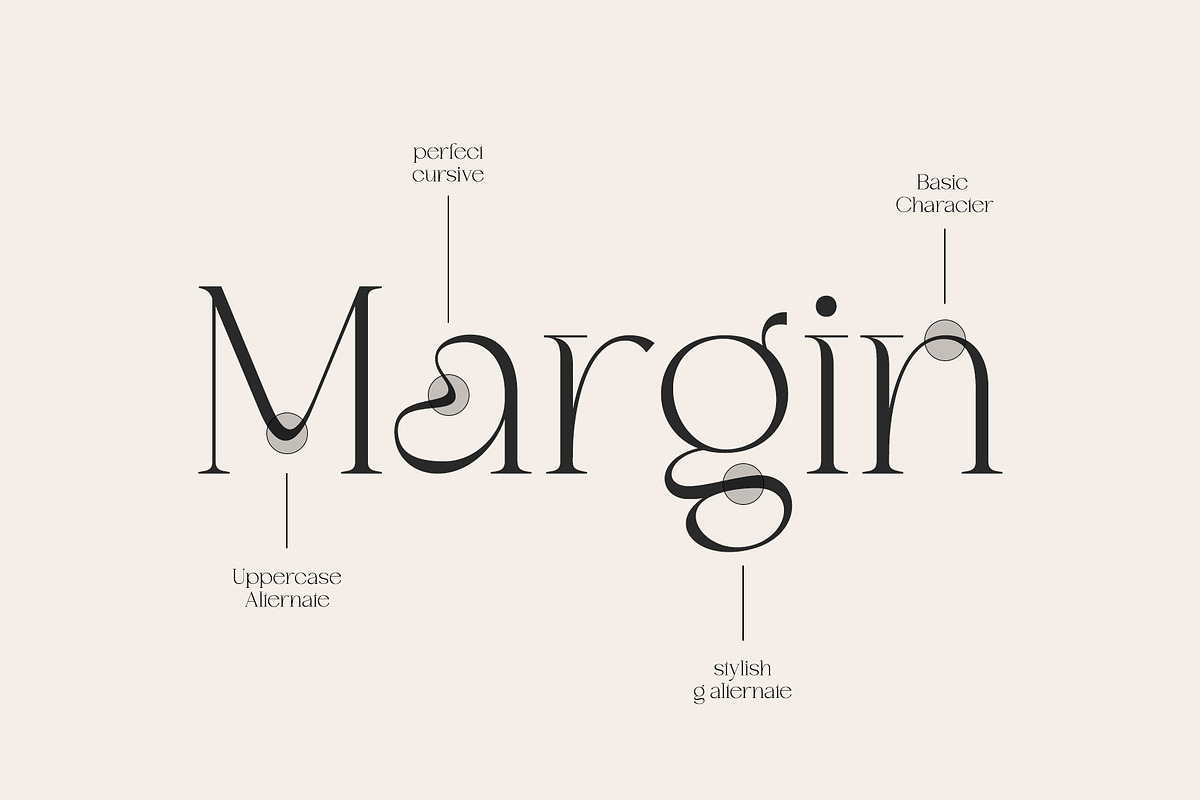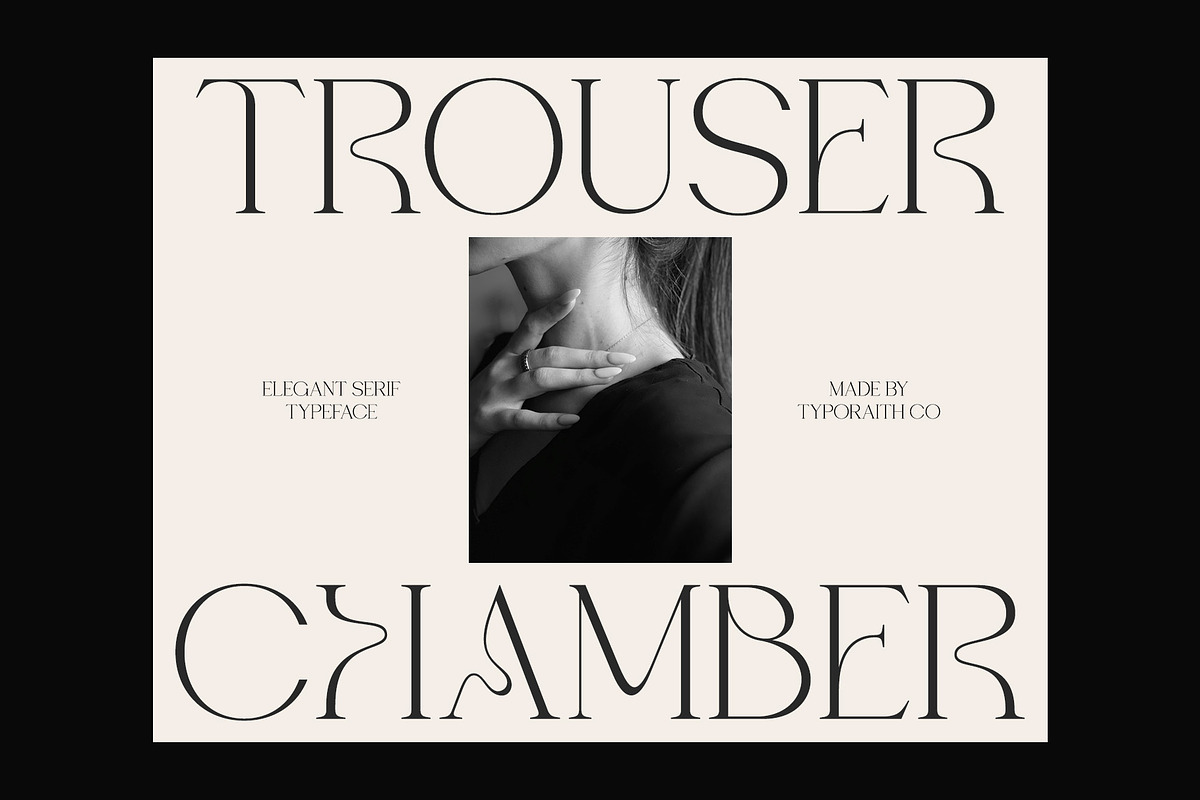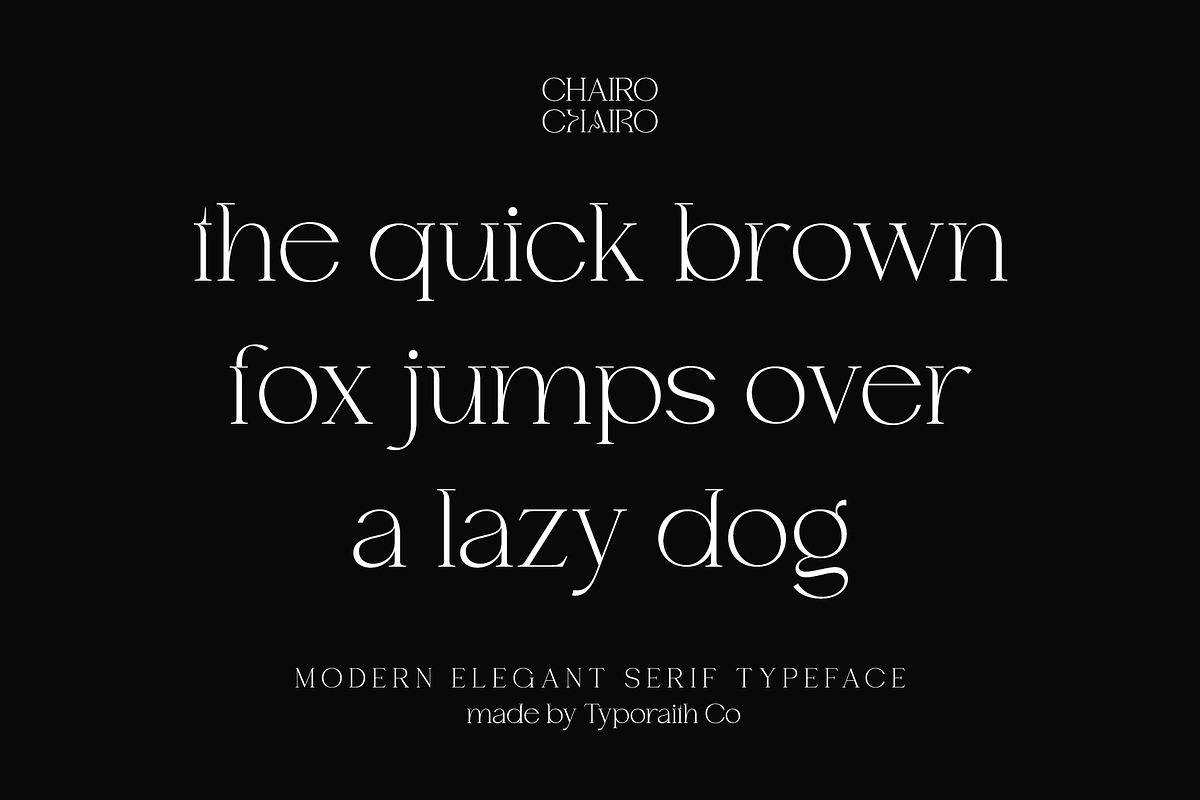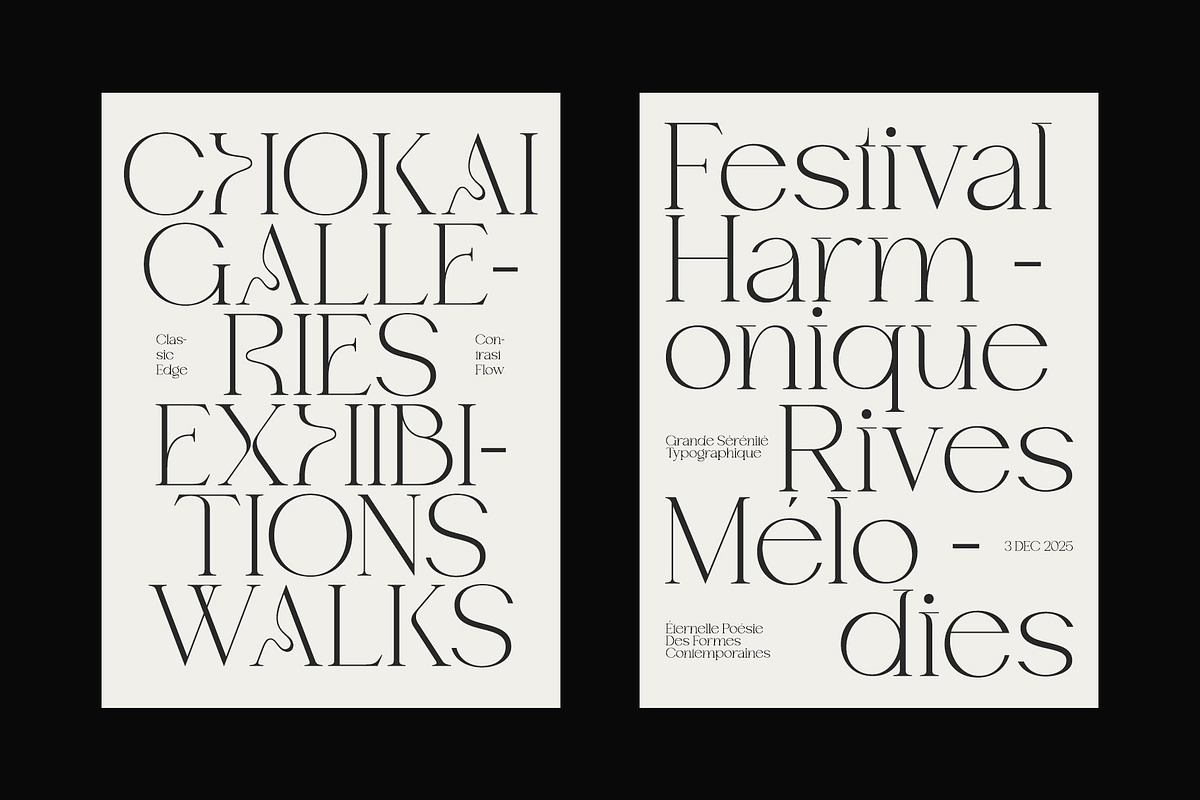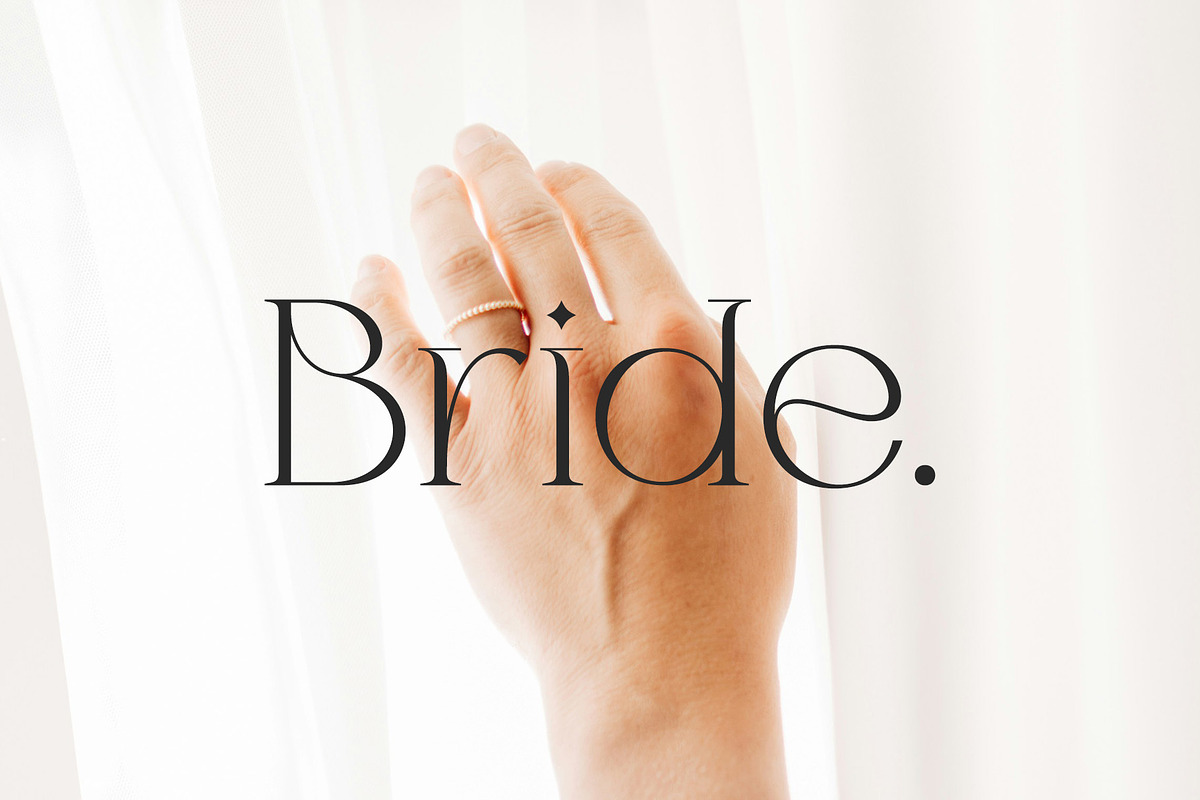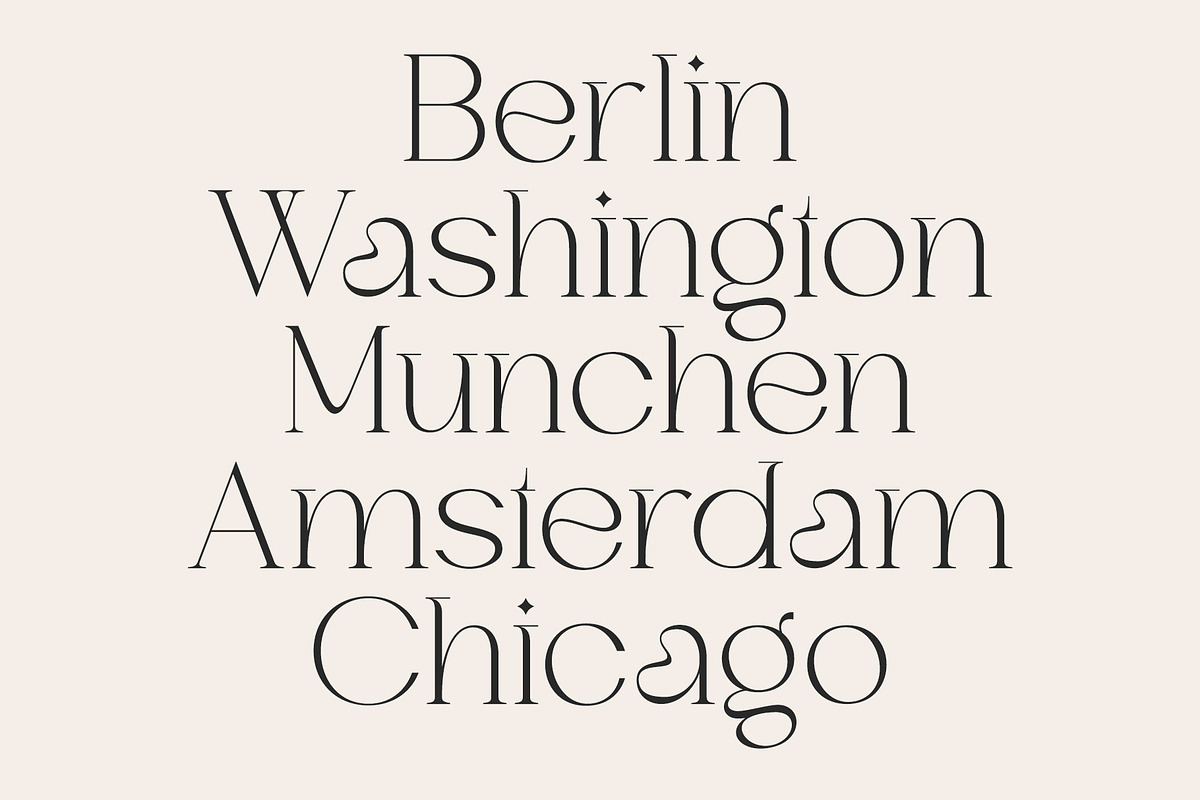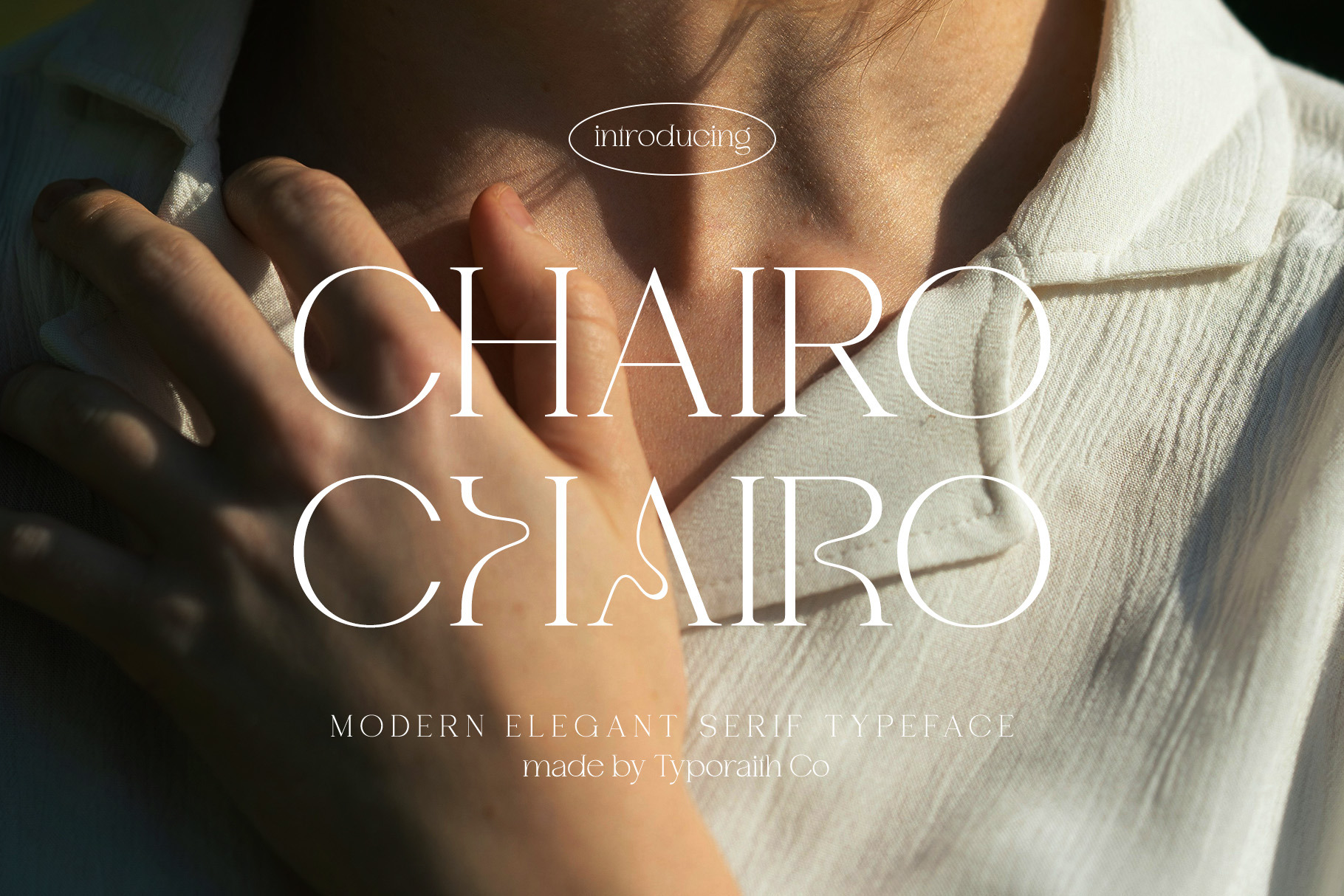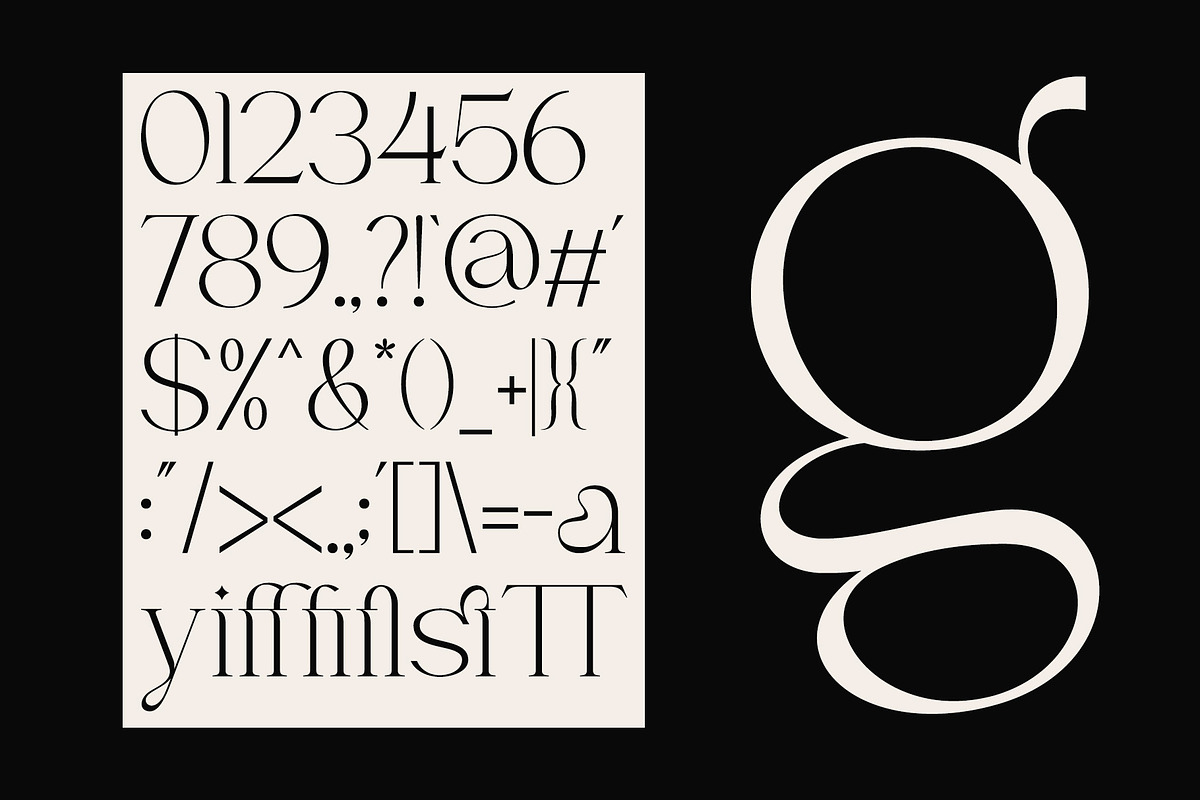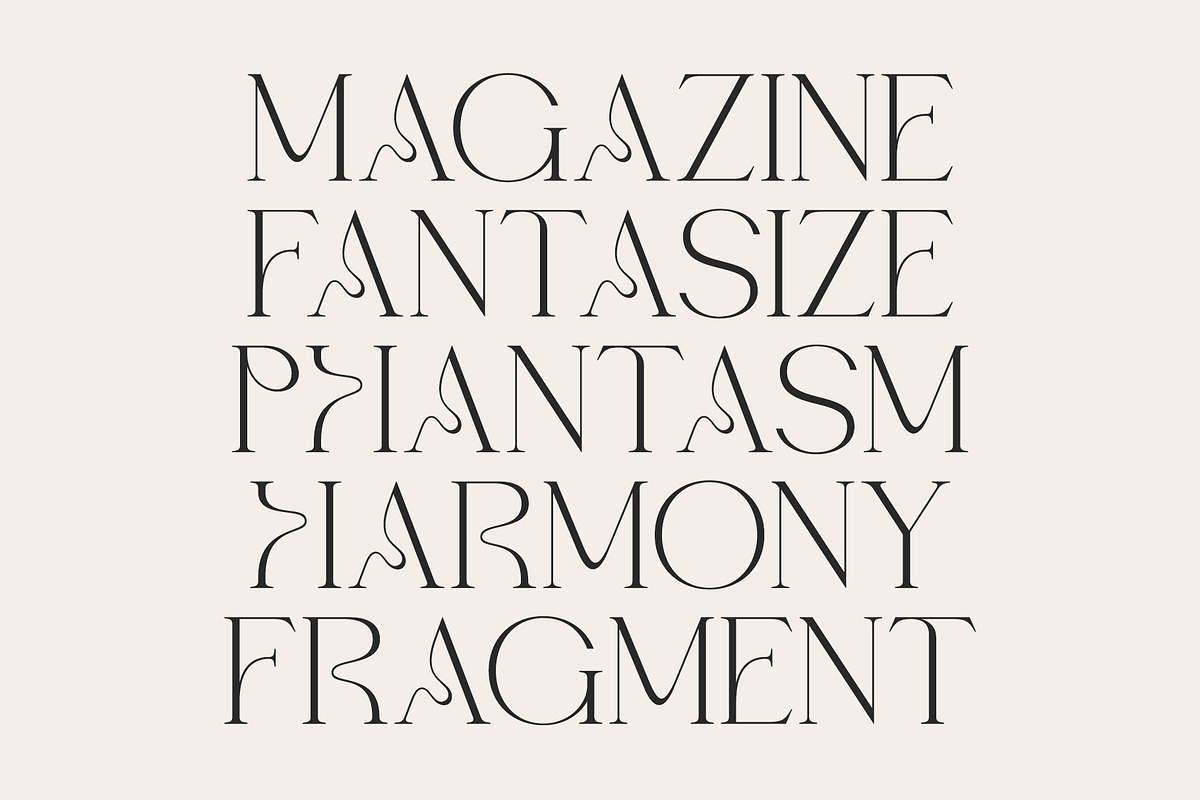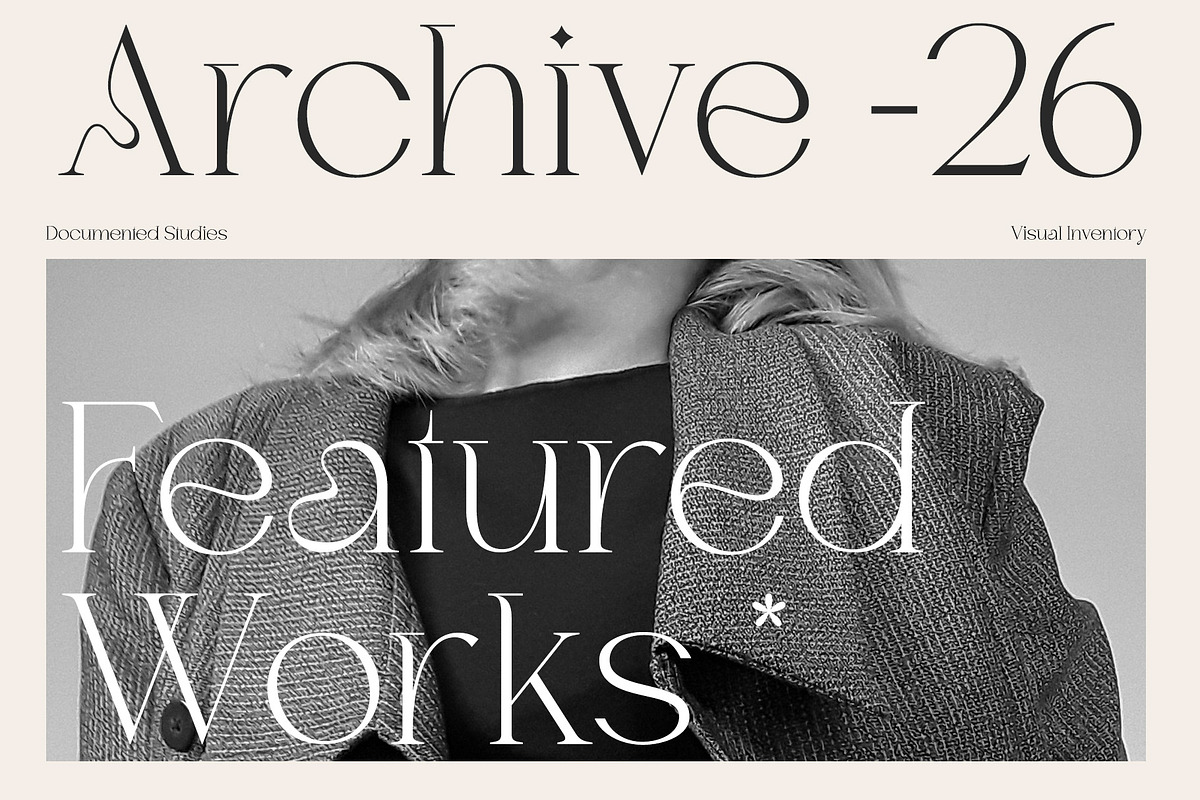
Chairo | Modern Serif Typeface
Chairo is a modern elegant serif typeface crafted with refined details, graceful curves, and distinctive stylistic forms that create a truly luxurious and sophisticated visual character. Each letter is carefully designed to bring a high-end aesthetic, making it the perfect choice for designers who want a premium and contemporary look in their projects.
Stylish Alternates
Modern elegant serif style
High-fashion inspired shapes
Unique artistic alternates
Ideal for luxury and editorial aesthetics
Chairo is designed for creators who seek a perfect blend of classic elegance and modern refinement. Its beautifully shaped characters elevate any design, making it look more polished, stylish, and professional.